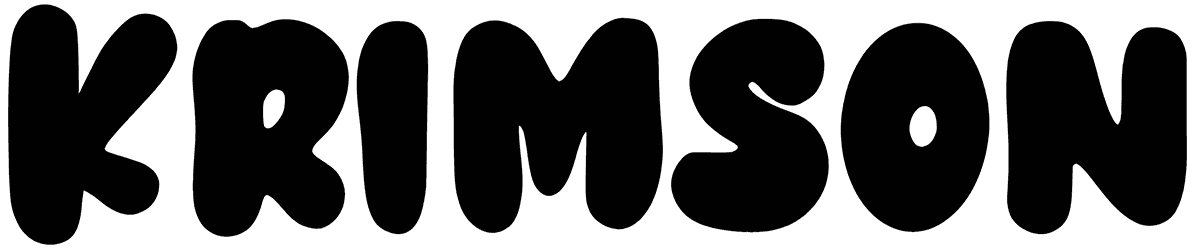
Krimson Font
If you are working on a kids’ summer camp poster or any playful design, this balloon font can be a good choice to give a bulky and appealing visual to them.
It’s an all-caps font with two sets of uppercase letters, and lowercase letters, numbers, or punctuation marks are not available, but you can use it for special words. Krimson font is going to make a sweet and soft style for your creative project.